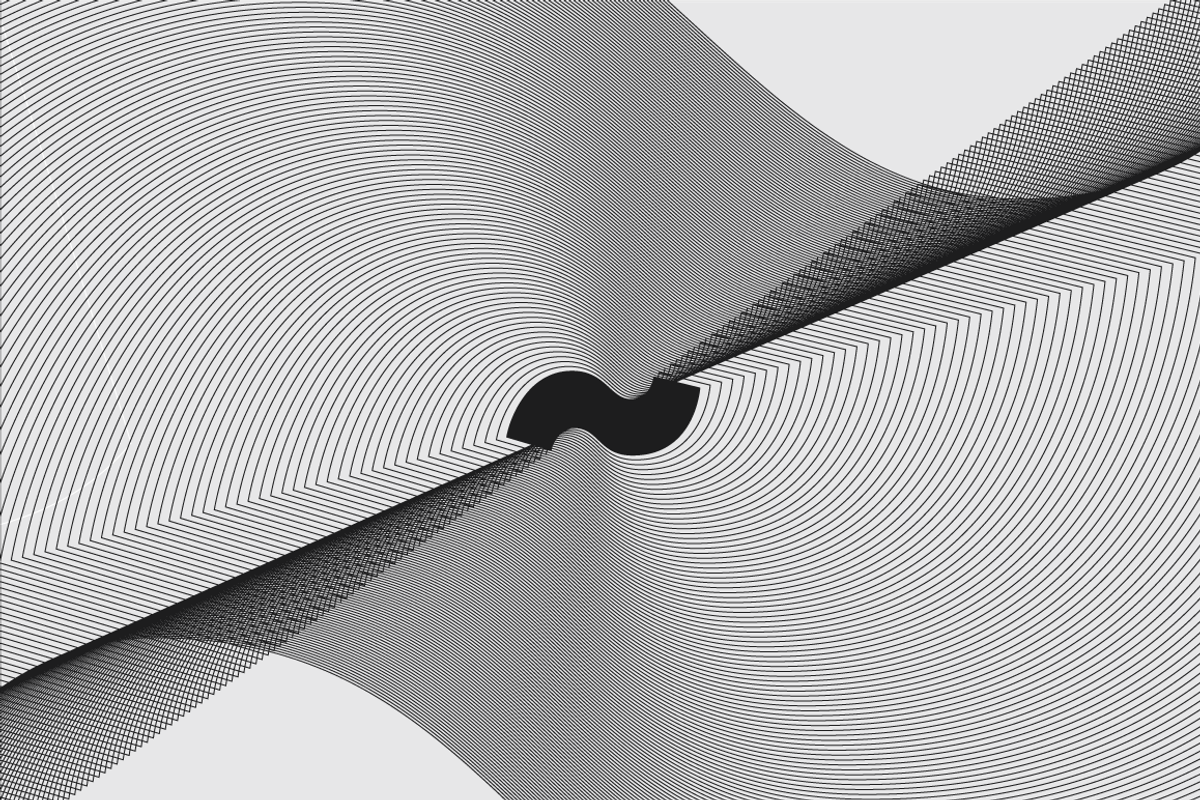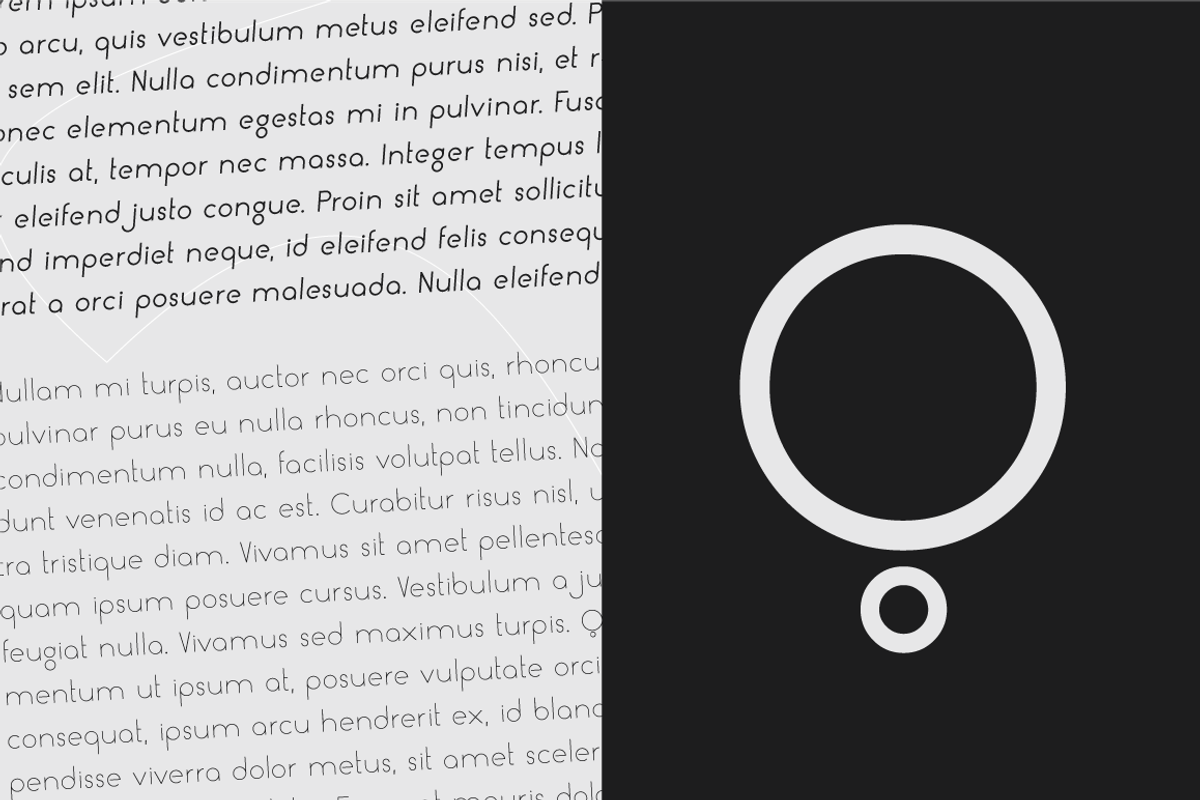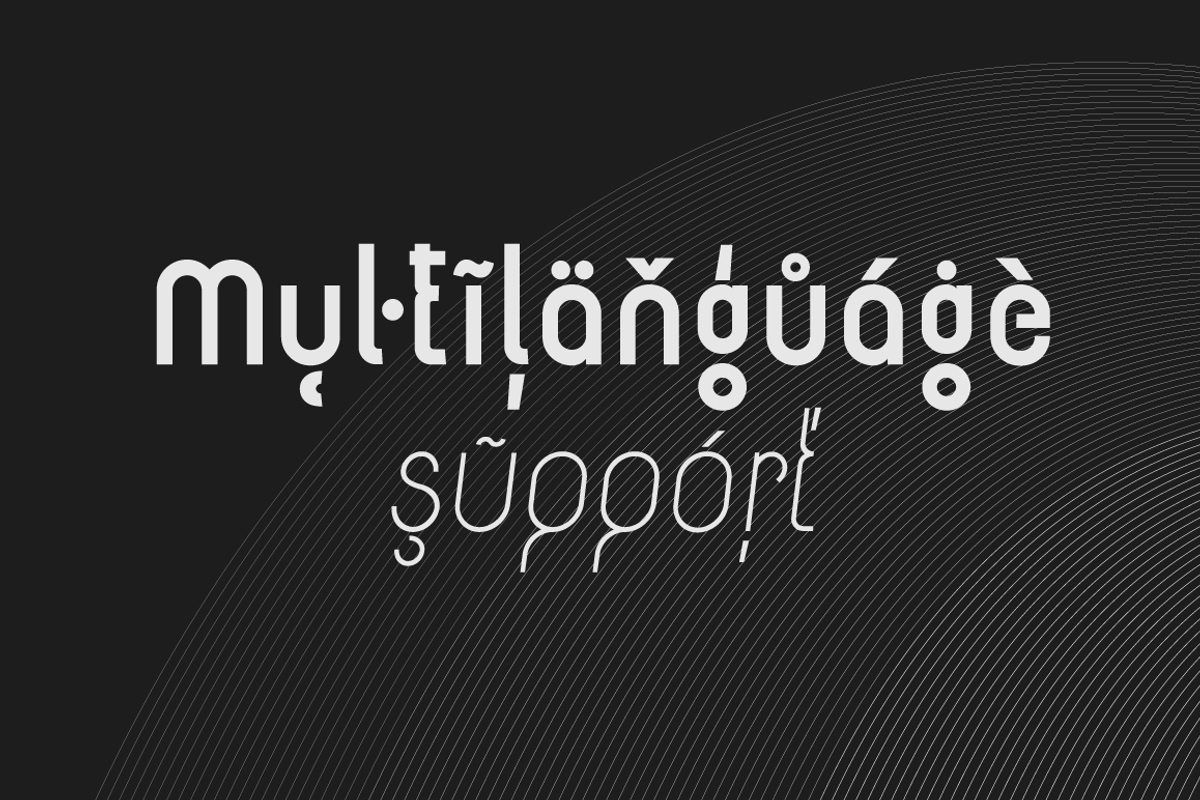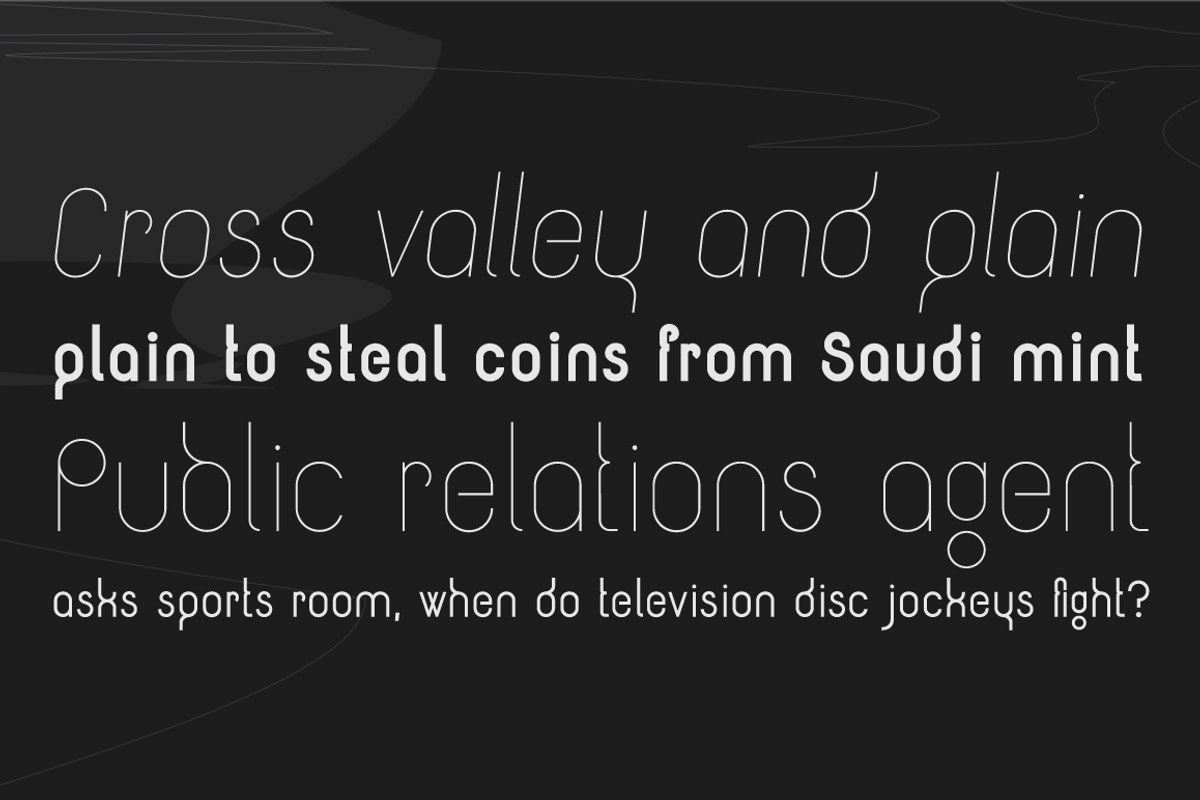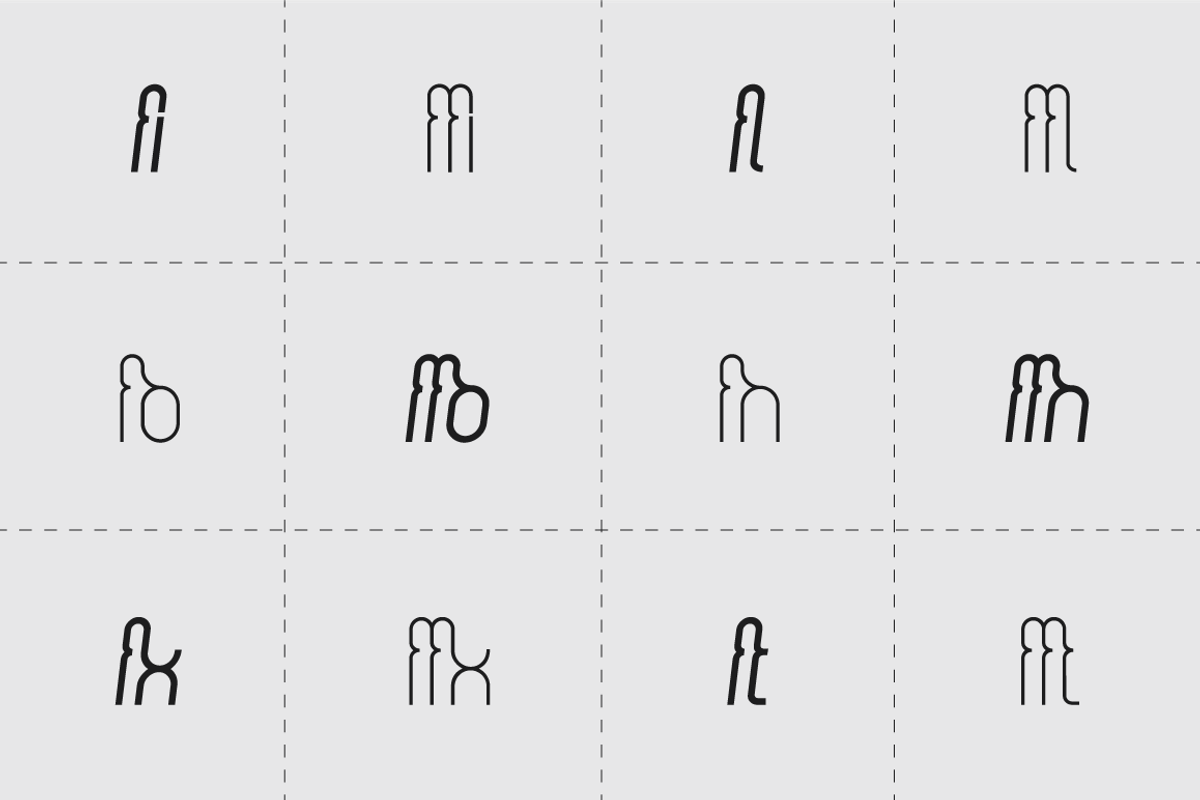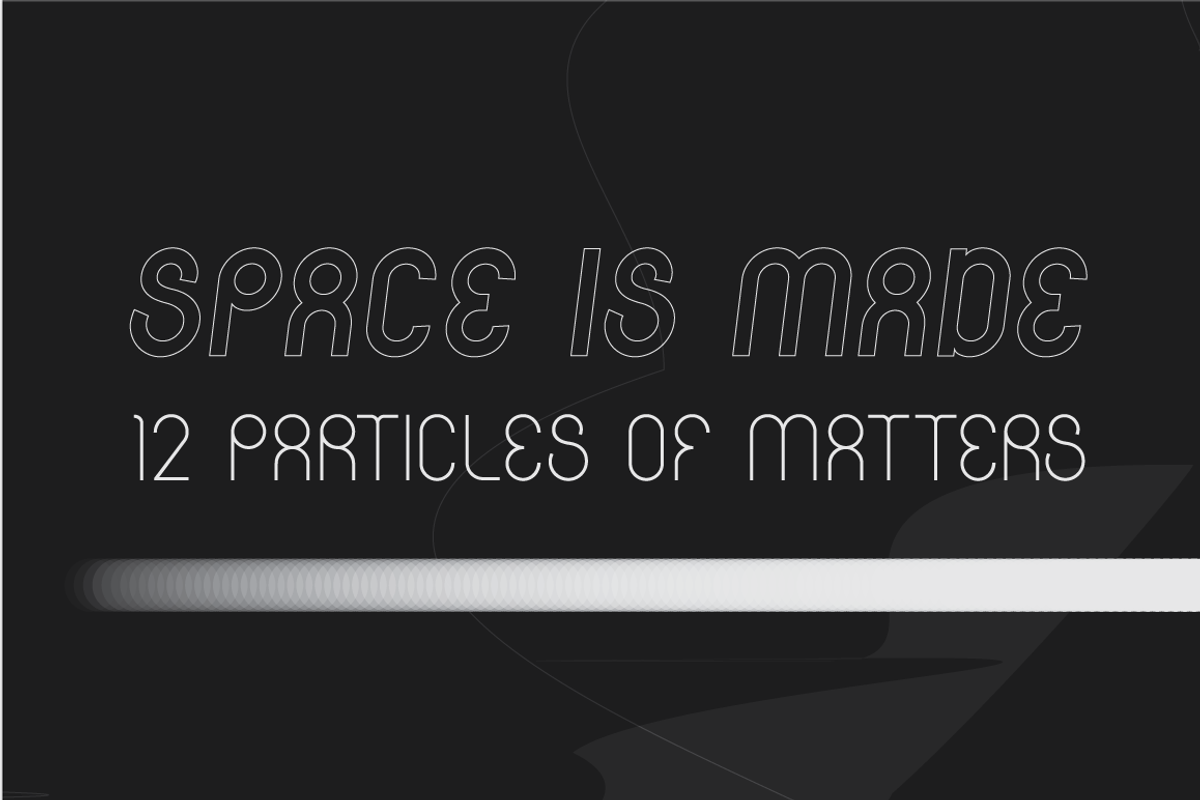
Circularis /bundle of 16 fonts/
Circularis is characterized by the nice and smooth unordinary circle geometric contruction inspired at last century, nice readability, low price and finaly many variation of useful.
2 families, 16 fonts of Circularis and Circularis Alt family (Circularis Thin, Circularis Thin italic, Circularis Light, Circularis Light italic, Circularis Regular, Circularis Regular italic, Circularis Bold, Circularis Bold italic, Circularis Alt Thin, Circularis Alt Thin italic, Circularis Alt Light, Circularis Alt Light italic, Circularis Alt Regular, Circularis Alt Regular italic, Circularis Alt Bold, Circularis Alt Bold italic)
- The Circularis font concept includes 2 families, 16 styles and weights - eight uprights with eight italics.
Circularis /bundle of 16 fonts/ by JAF 34 fits naturally into Branding, posters, packaging, typography.